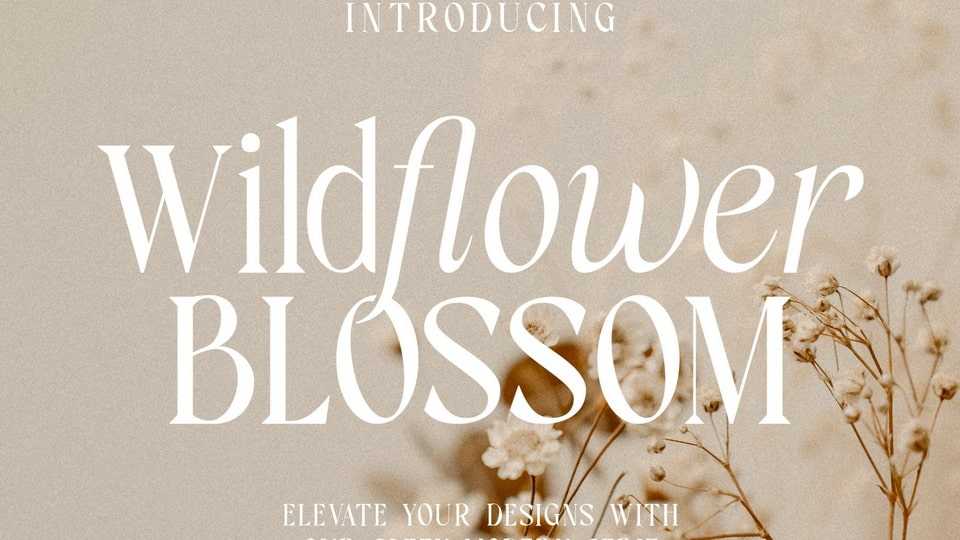
Download Wildflower Blossom font, a unique serif typeface with a modern touch. With its elegant and slim letter shapes, it offers a distinctive and captivating beauty.